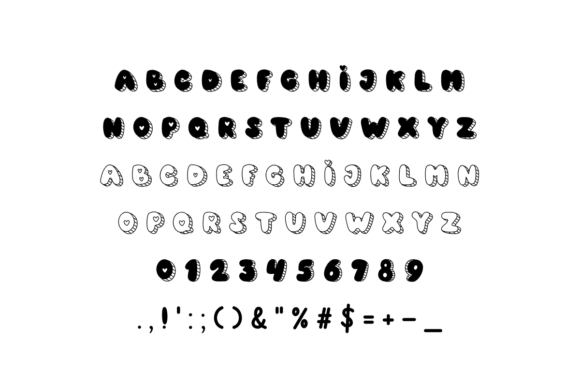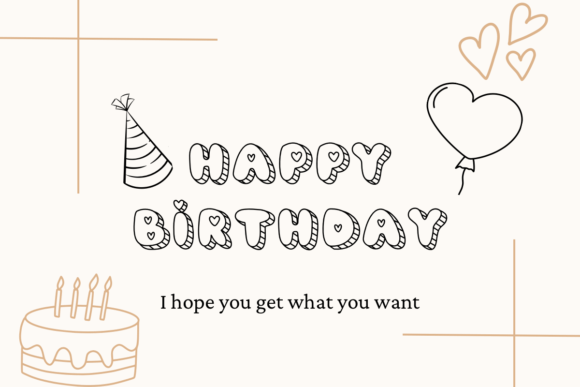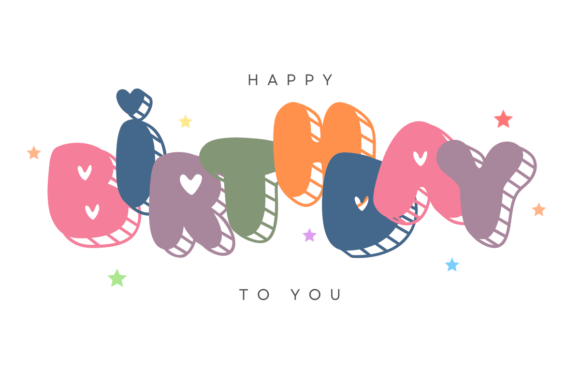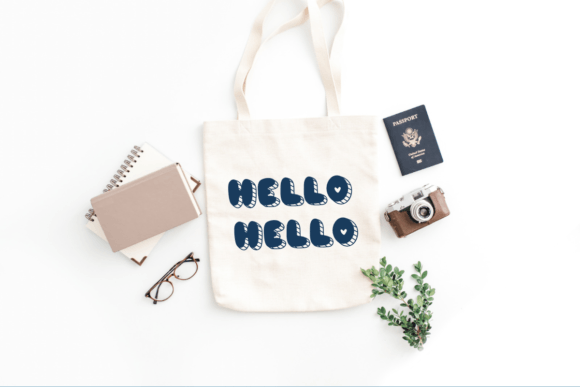
Introducing the Happy Birthday Font: A Fun and Cheerful 3D Display Font
Are you looking for a way to make your birthday messages stand out? Do you want to create party invitations and greeting cards that are bursting with excitement and energy? Look no further than the Happy Birthday Font, a fun and cheerful display font that’s sure to bring a smile to anyone’s face.
A 3D Effect that’s Popping Out!
The Happy Birthday Font is designed to look like it’s popping out in 3D, giving your birthday messages a playful and dynamic feel. The letters are big, bold, and colorful, making them perfect for creating eye-catching party invitations, greeting cards, and other birthday-themed projects.
Designed for Designers and Crafters
Whether you’re a professional designer or a crafty DIY enthusiast, the Happy Birthday Font is the perfect addition to your font collection. With its fun and cheerful design, this font is sure to inspire your creativity and help you create birthday messages that are truly special.
Key Features of the Happy Birthday Font
- Big and Bold Letters: The Happy Birthday Font features large, bold letters that are perfect for creating eye-catching birthday messages.
- 3D Effect: The font’s 3D effect gives it a playful and dynamic feel that’s sure to grab attention.
- Colorful Design: The font’s colorful design makes it perfect for creating fun and lively birthday messages.
Uses for the Happy Birthday Font
The Happy Birthday Font is perfect for a wide range of birthday-themed projects, including:
- Party Invitations: Create eye-catching party invitations that set the tone for a fun and exciting celebration.
- Greeting Cards: Design personalized greeting cards that are sure to bring a smile to the birthday boy or girl’s face.
- Birthday Banners: Create colorful birthday banners that are perfect for decorating parties and special events.
- Social Media Posts: Use the Happy Birthday Font to create fun and engaging social media posts that celebrate birthdays and special occasions.
Tips for Using the Happy Birthday Font
Here are a few tips for using the Happy Birthday Font to create amazing birthday messages:
- Experiment with Colors: Try out different color combinations to create a unique and eye-catching design.
- Play with Size: Experiment with different font sizes to create a dynamic and playful design.
- Add Graphics: Add graphics and images to your design to make it more visually interesting.
- Keep it Simple: Don’t be afraid to keep your design simple and clean – sometimes less is more!
The Happy Birthday Font is a fun and cheerful display font that’s perfect for creating exciting and lively birthday messages. With its 3D effect, big and bold letters, and colorful design, this font is sure to bring a smile to anyone’s face. Whether you’re a professional designer or a crafty DIY enthusiast, the Happy Birthday Font is a great addition to your font collection. So why wait? Download the Happy Birthday Font today and start creating amazing birthday messages that will be remembered for years to come!